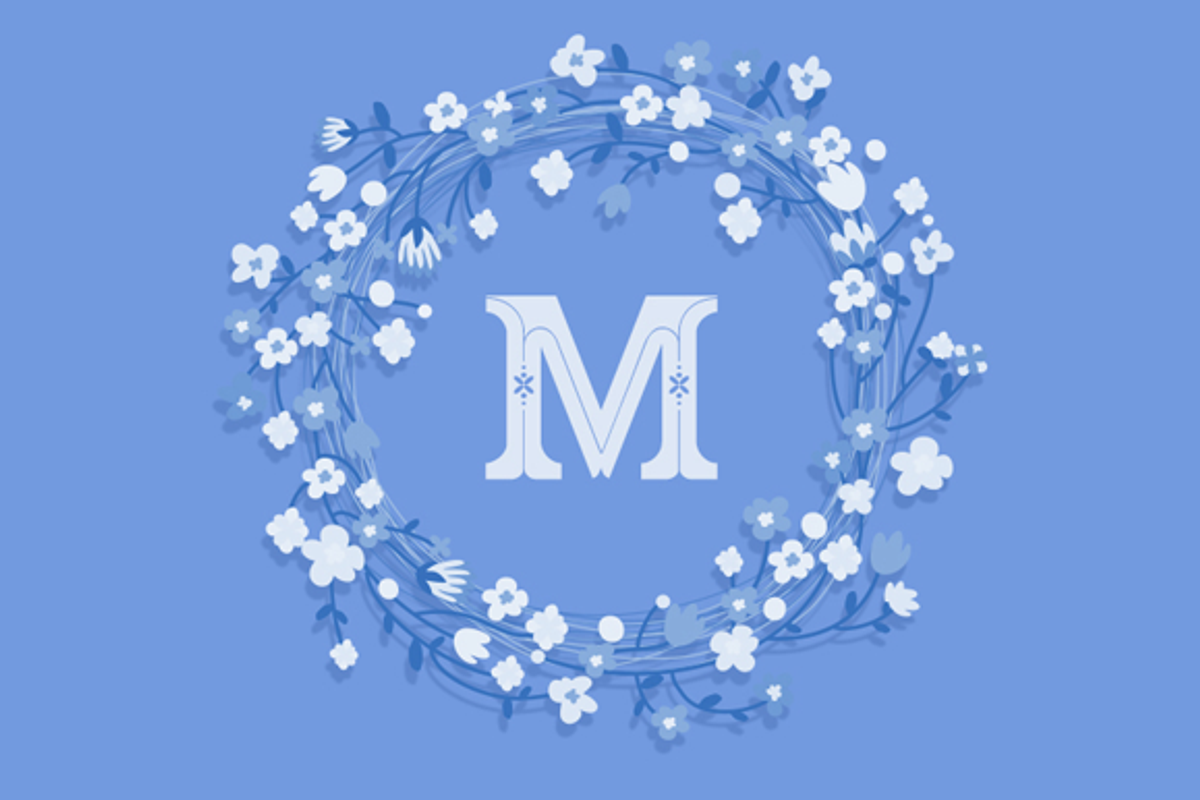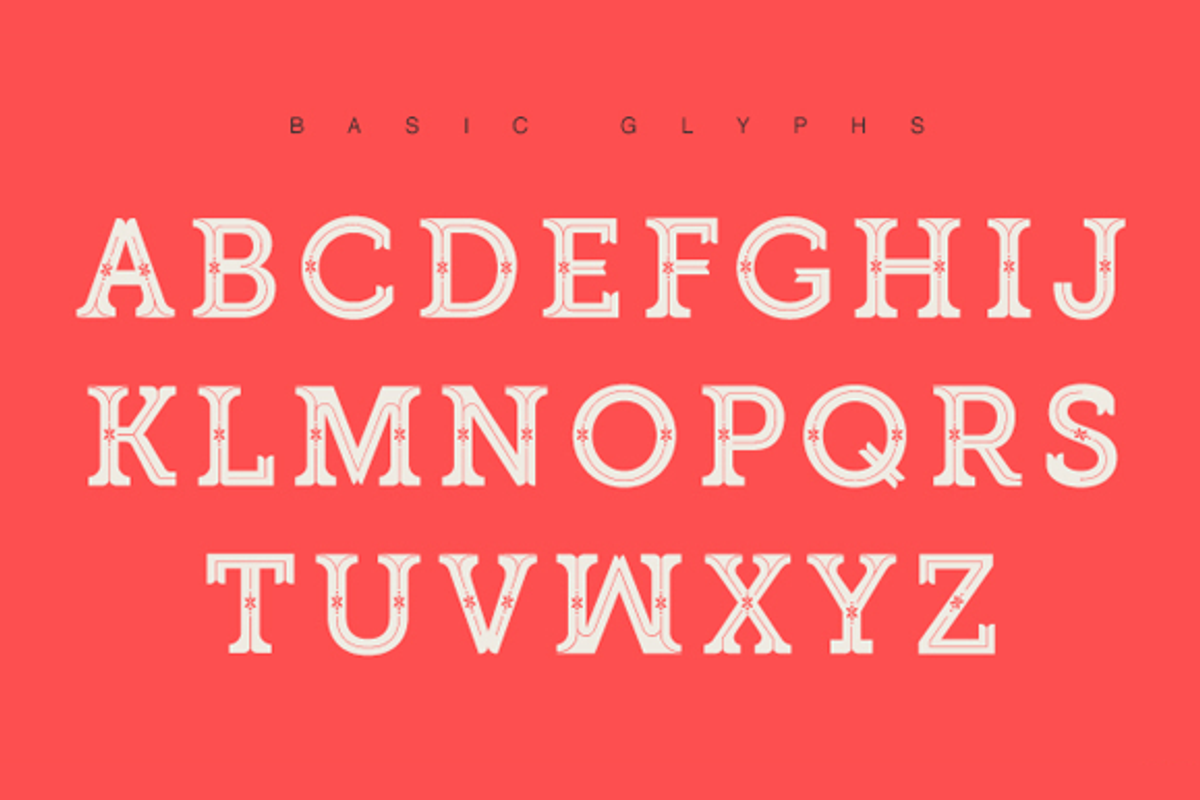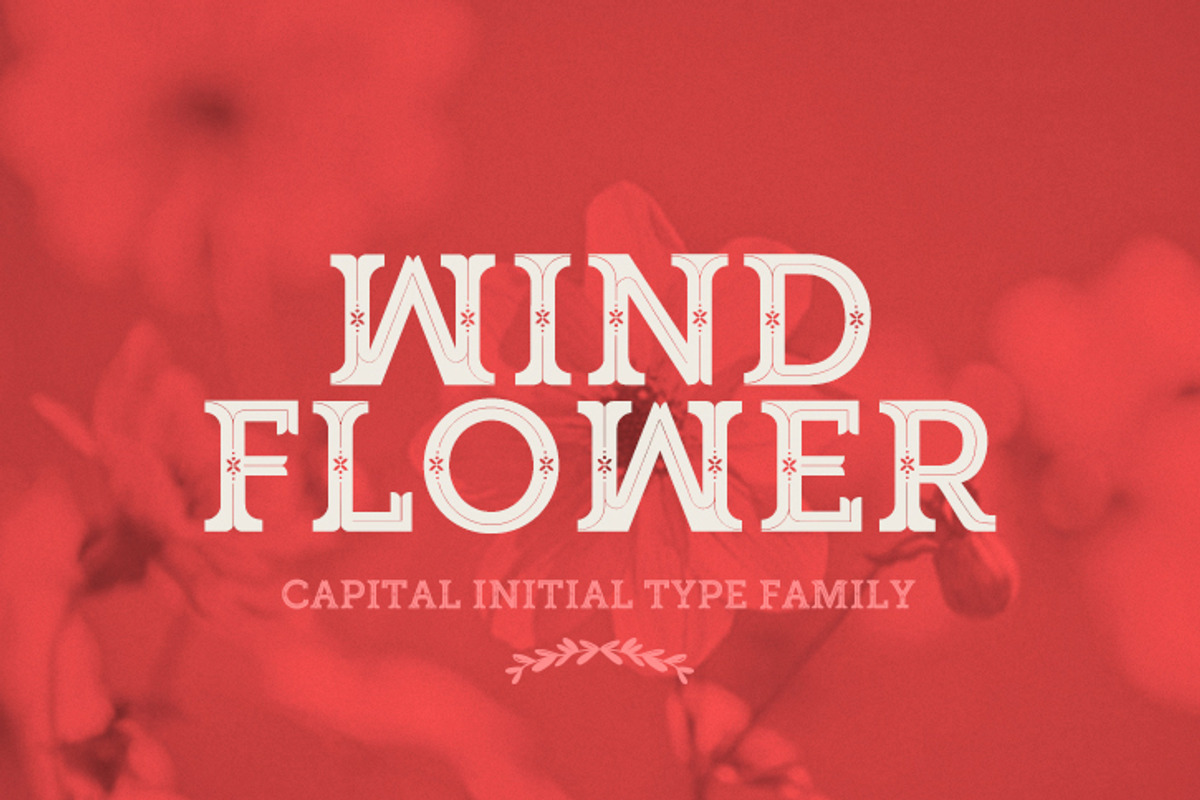
WINDFLOWER | FONT
WINDFLOWER | FONT by kadusupanik is a font selected for branding, posters, packaging, typography.
- WindFlower is an capital initial uppercase display typeface inspired by the classic and vintage serif font family's.
WINDFLOWER | FONT by kadusupanik fits naturally into Branding, posters, packaging, typography.